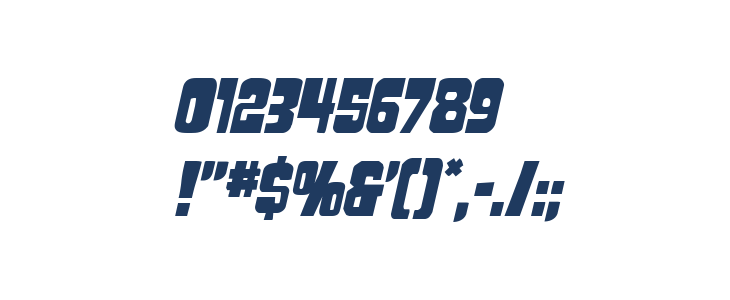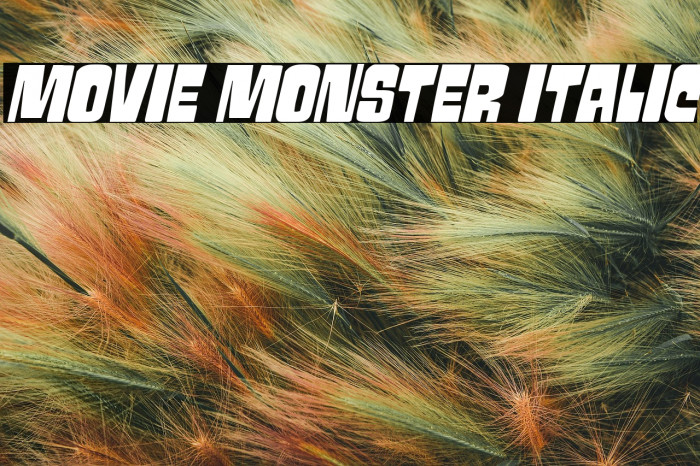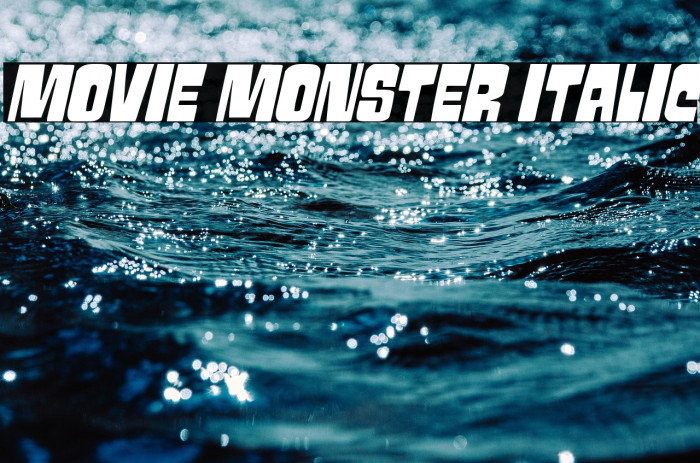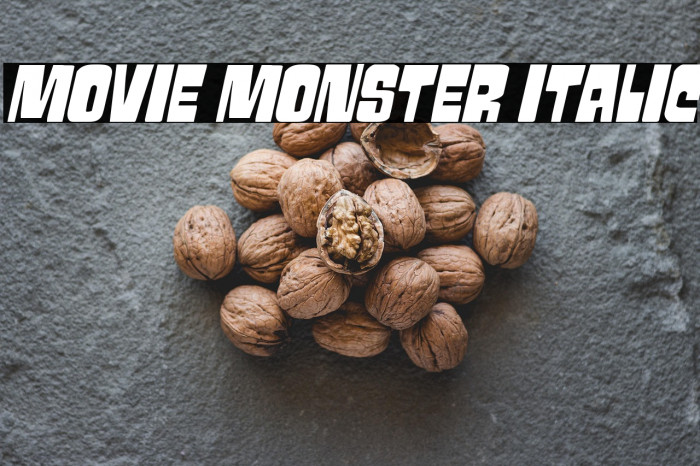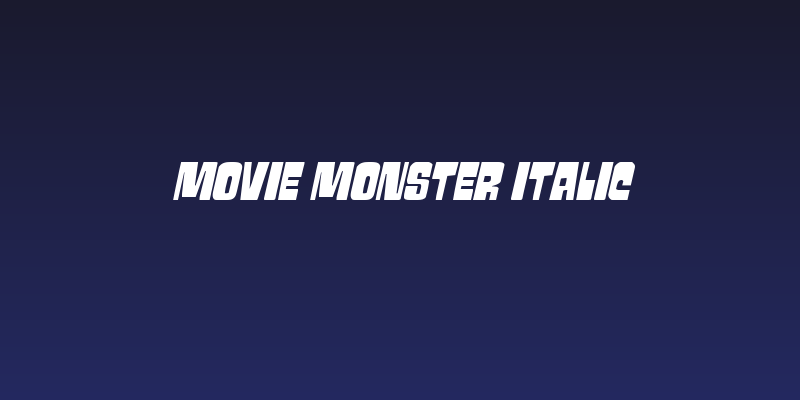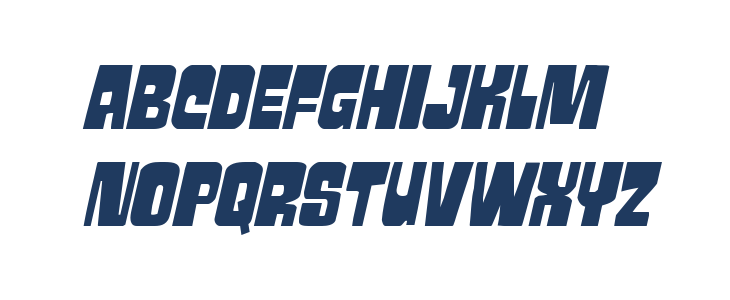
Movie Monster Italic Font
Movie Monster Italic Description
This font features a bold, italicized style with a strong, dynamic presence. The characters are heavily slanted, giving a sense of motion and urgency. The strokes are thick and consistent, creating a powerful visual impact. The design is modern and aggressive, suitable for attention-grabbing headlines or branding that requires a bold statement. The uppercase and lowercase letters maintain a uniform style, with sharp angles and a slightly condensed appearance. The numerals and special characters follow the same bold, italicized design, ensuring consistency across all text elements.
| Proposed Projects | Ideal for movie posters, video game titles, sports branding, and any project needing a bold, impactful font. |